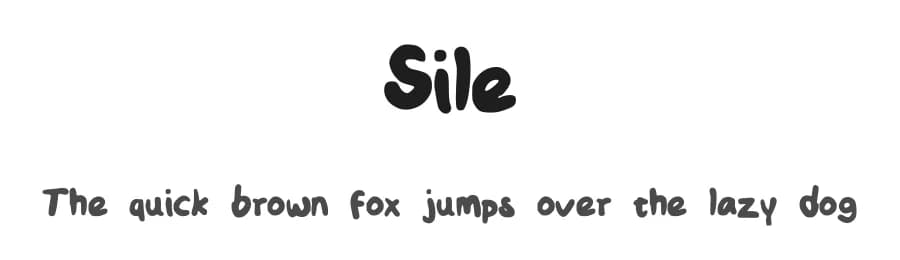
About Sile Font
Sile is a script & handwritten font designed by Dave Ellis. It includes 143 glyphs, a medium weight, TTF (TrueType) format, and 121 languages. Sile is free to download; check the license details on this page before commercial use. Script & handwritten fonts like Sile work best for wedding invitations, greeting cards, signatures, and elegant branding.
Sile Font is a script font that shines as a display or heading face. Pair it with a clean sans-serif or serif font for body text β the contrast creates a clear hierarchy while the two styles stay balanced and easy to read.
Sile Font
by Dave Ellis